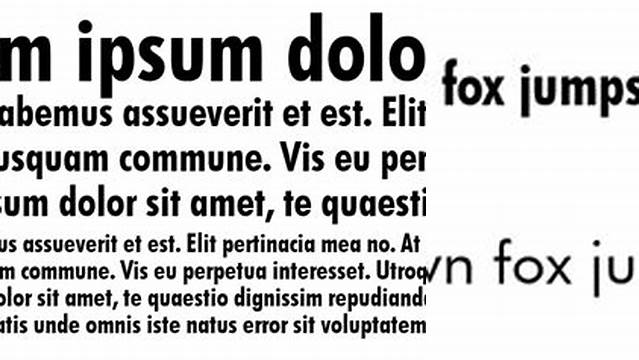
Futura BDCN BT Bold Font: Free Download Guide
Hey guys! Ever stumbled upon a font that just clicks? For many designers and typographers, Futura BDCN BT Bold is that font. It's sleek, it's modern, and it carries a certain weight – both literally and figuratively – that makes it a go-to choice for a myriad of projects. But let's be real, finding a reliable source to download it for free can feel like navigating a digital maze. Fear not! This guide is your trusty map to understanding, appreciating, and, yes, even downloading Futura BDCN BT Bold without emptying your wallet.
What Makes Futura BDCN BT Bold So Special?
Before we dive into the download details, let's geek out a little on what makes Futura BDCN BT Bold so darn appealing. This font is a geometric sans-serif typeface, meaning it's built upon clean, simple geometric shapes. Paul Renner designed the original Futura in 1927, and it quickly became a symbol of the Bauhaus movement's design philosophy: form follows function. Over the years, numerous adaptations and variations have emerged, including the BDCN BT Bold version, which offers a bolder, more assertive presence.
Key Characteristics of Futura BDCN BT Bold:
- Geometric Precision: The font's foundation in circles, squares, and triangles gives it a distinctly modern and structured feel.
- Clean Lines: Futura eschews unnecessary embellishments, opting for clarity and legibility.
- Bold Weight: The "Bold" designation amplifies its visual impact, making it ideal for headlines, titles, and branding materials.
- Versatility: Despite its strong personality, Futura BDCN BT Bold adapts well to various design contexts, from corporate communications to artistic endeavors.
- Timeless Appeal: Although it's nearly a century old, Futura remains remarkably relevant and contemporary.
Why Designers Love It:
Designers gravitate towards Futura BDCN BT Bold for its ability to convey a sense of sophistication, efficiency, and modernity. It's a font that speaks volumes without shouting, making it perfect for projects that demand clarity and impact. Its geometric nature also makes it incredibly scalable and adaptable to different media, whether it's print, web, or even environmental graphics.
In essence, Futura BDCN BT Bold is more than just a font; it's a design statement. It represents a commitment to simplicity, functionality, and timeless elegance. This is why it continues to be a favorite among designers seeking to create impactful and enduring visuals.